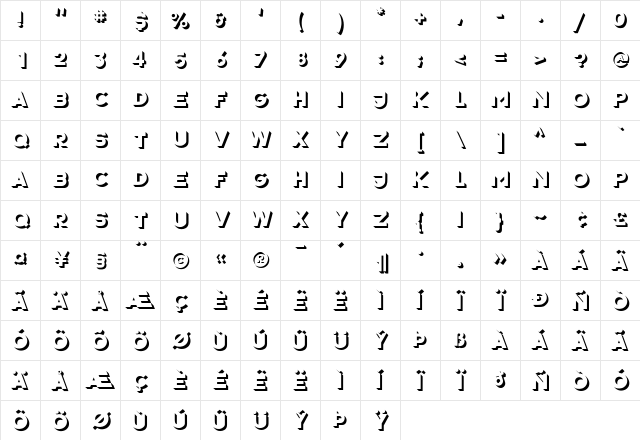
P22Bayer Regular
Design Context for P22Bayer Typeface
P22Bayer is a composed and adaptable typeface that performs quietly and consistently across a wide range of design contexts.